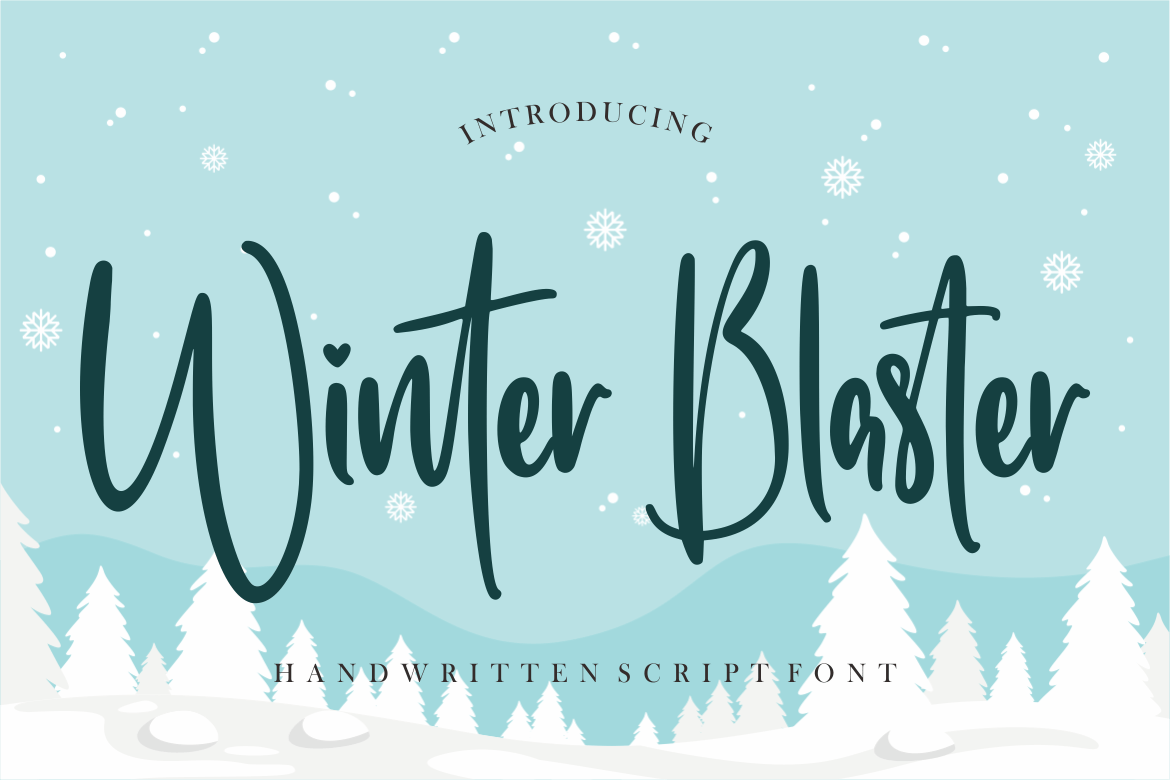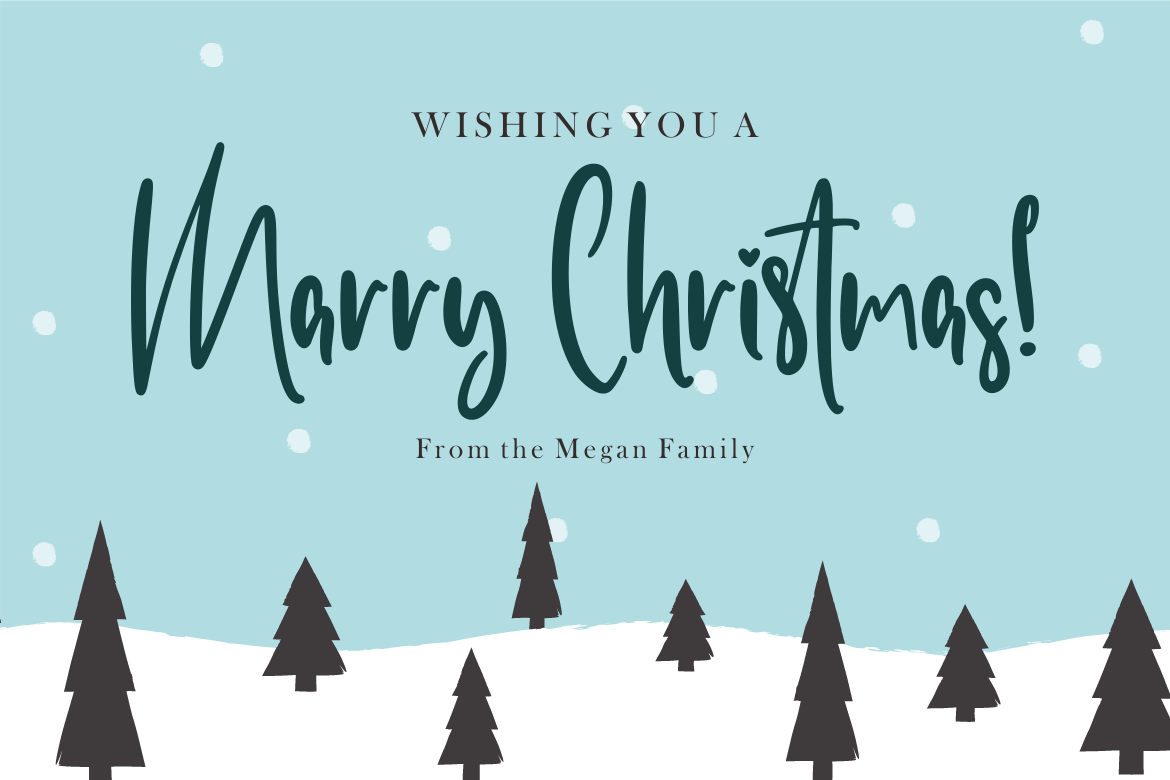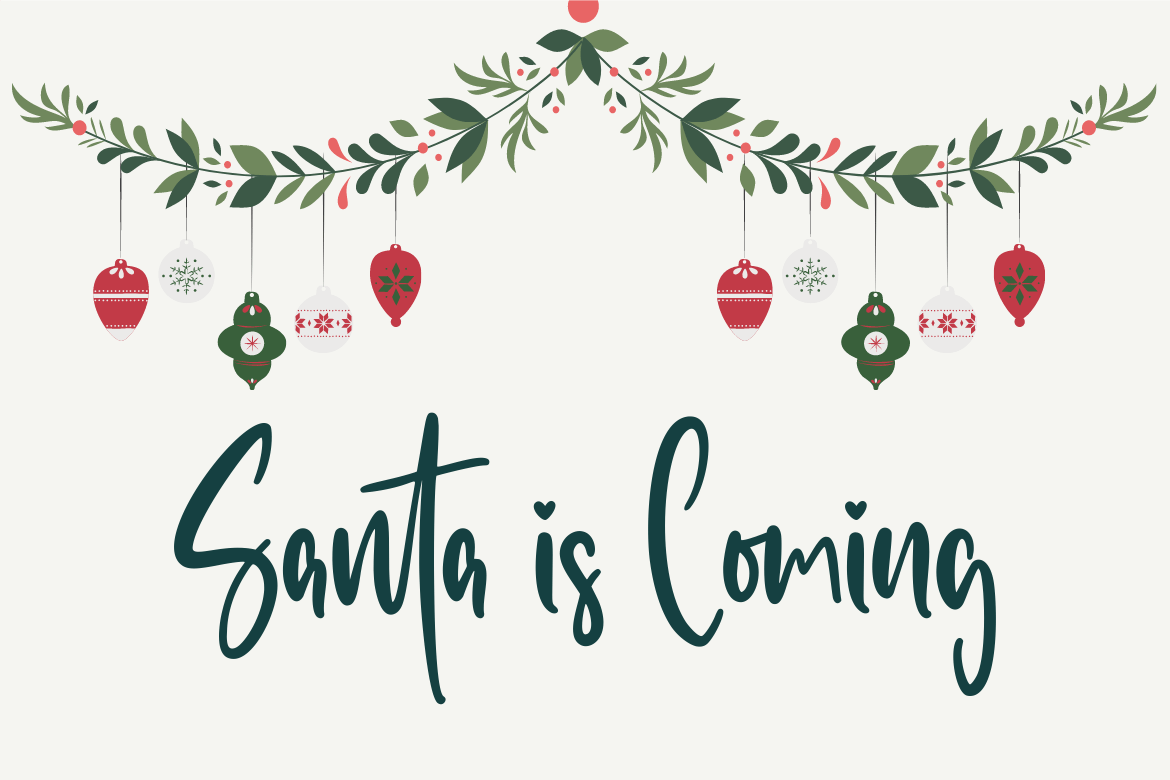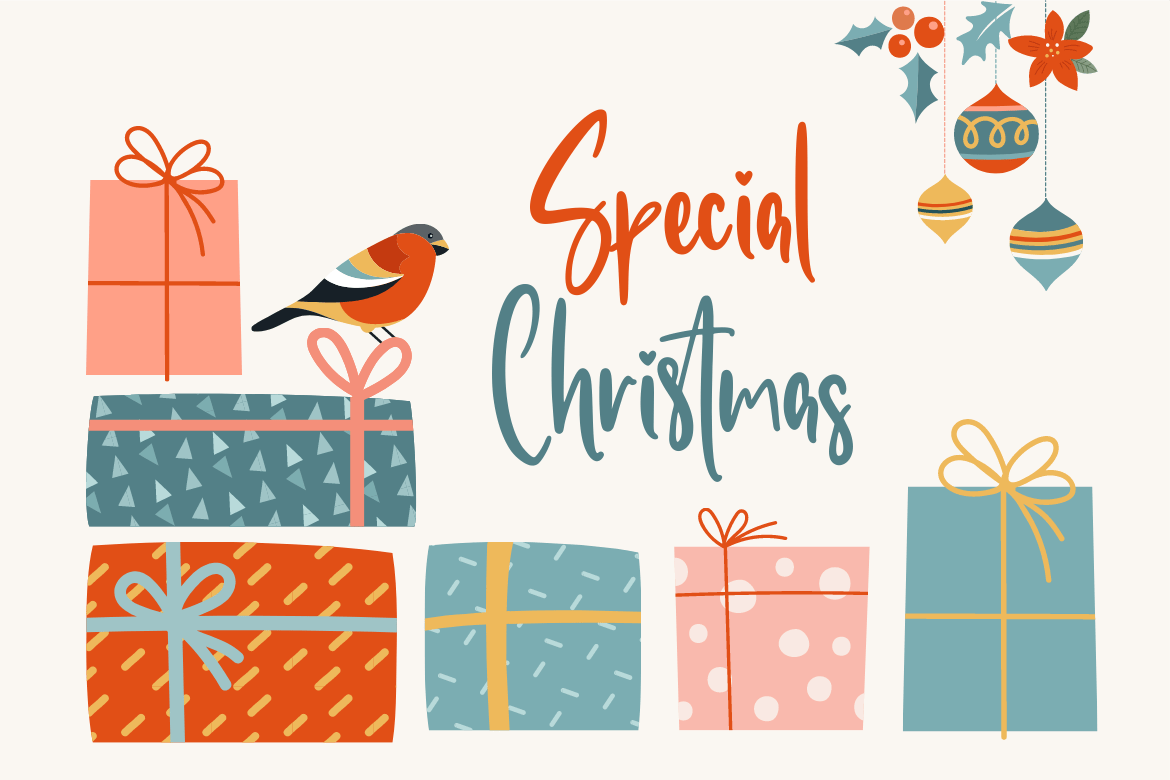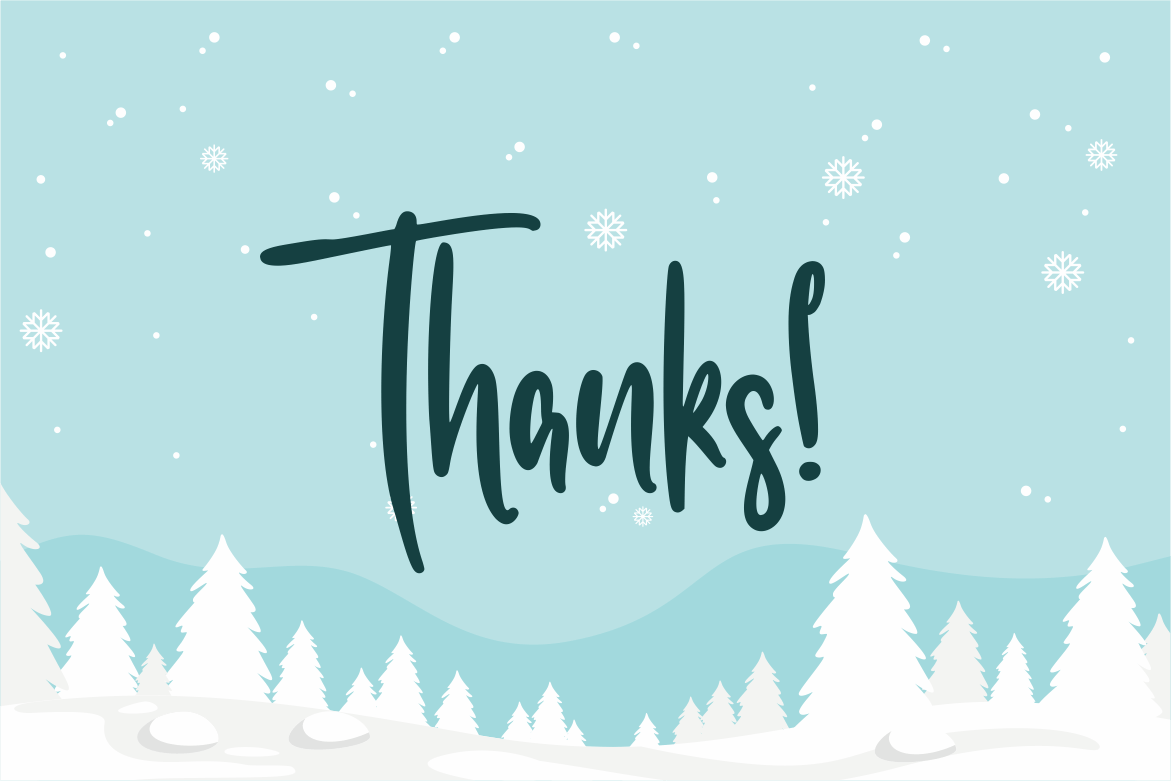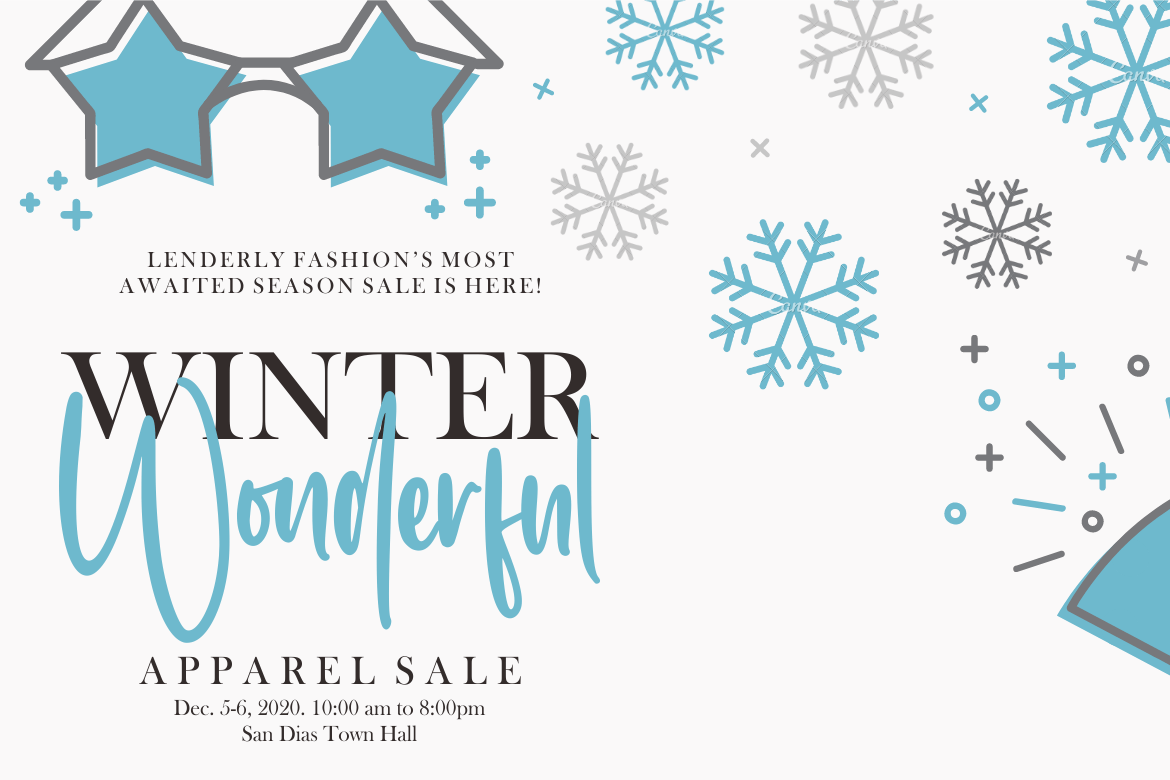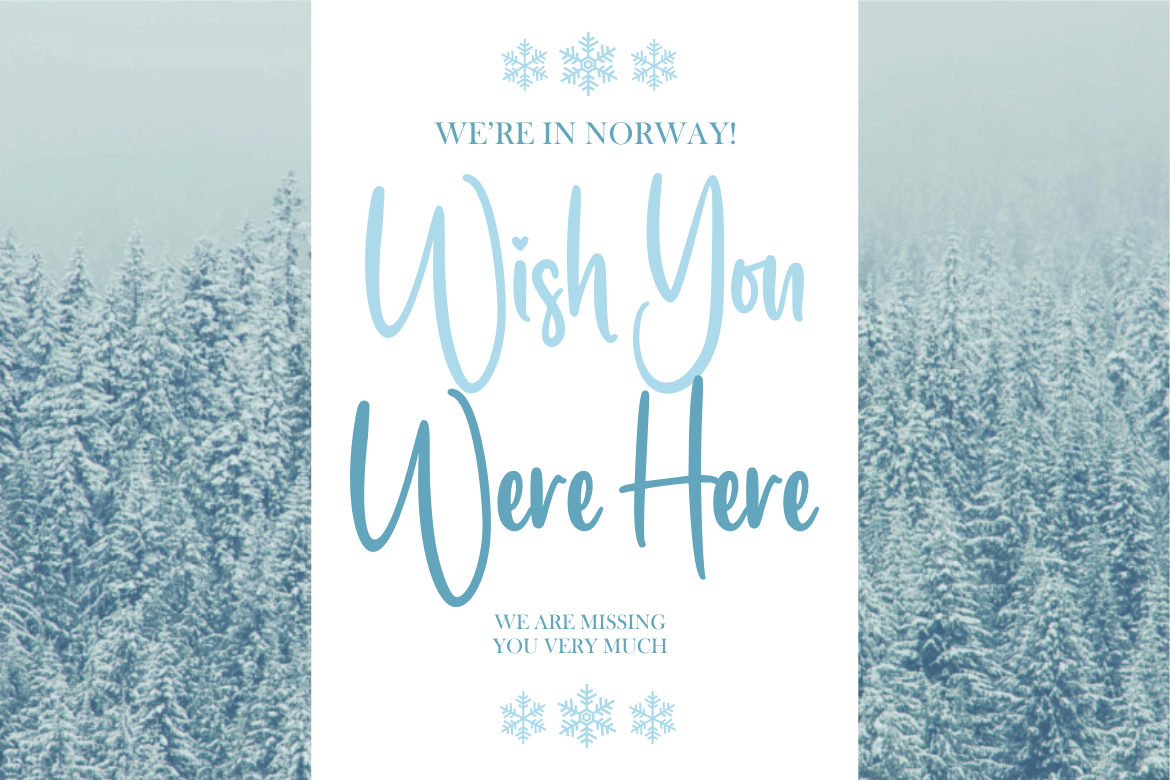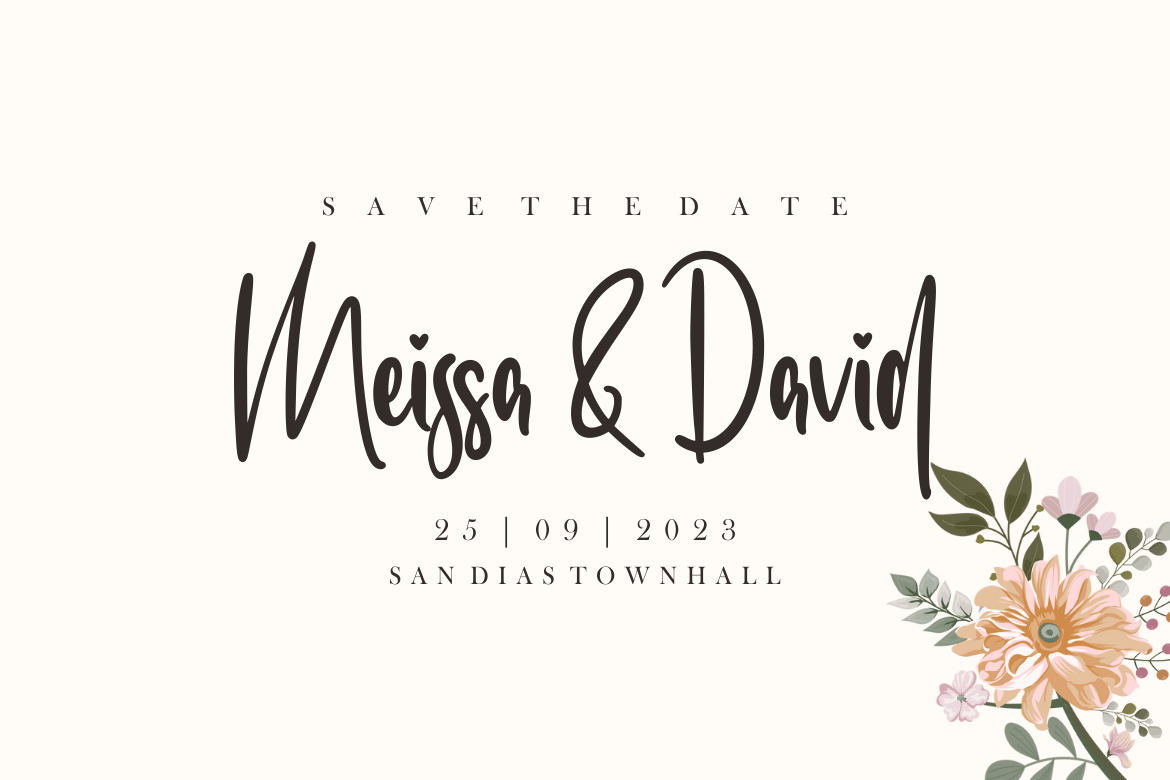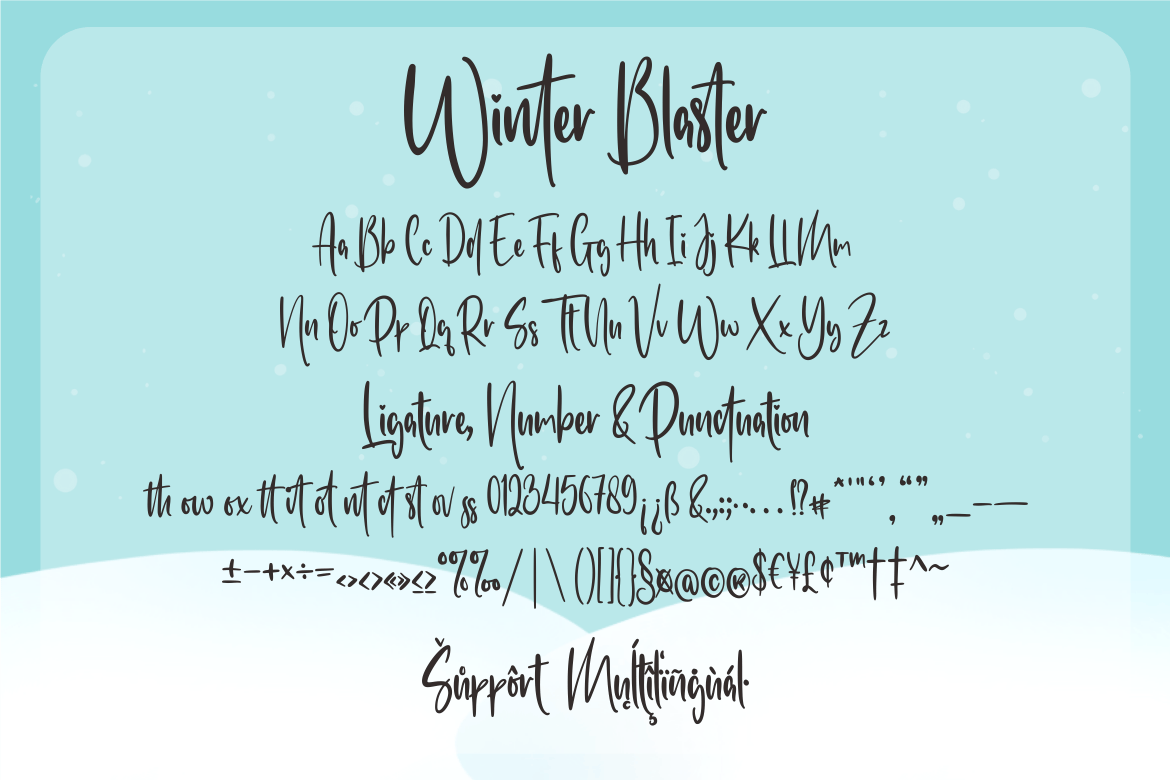
Winter Blaster Script Font
Introducing, Winter Blaster is a stylish script font suitable for your design project needs, such as; Christmas themes, Valentine’s, wedding, social media posts, quotes, overlays on images, tagline logos, posters, print needs, website banners, and more.
- A set of uppercase and lowercase glyphs
- Number, symbol, and punctuation